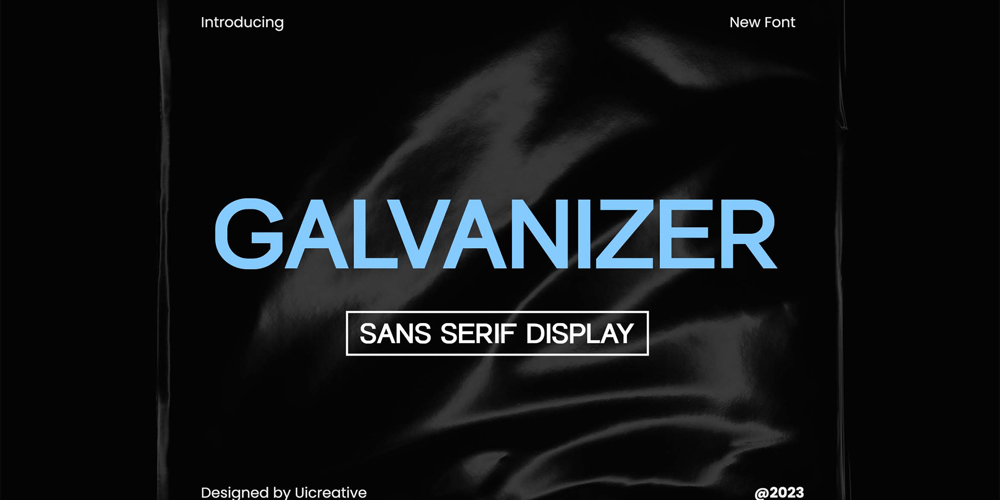
Galvanizer
Galvanizer font
Galvanizer Font Family was designed by Hero and published by UICreative. Galvanizer contains 9 styles and family package options. Introducing our new product the name Galvanizer Sans Serif Display Family Font comes with 9 different weights. Modern Sans Serif font that beautiful classy, elegant, and modern. This font is perfectly suited for a wide variety of projects, such as signature, stationery, logo, wedding, typography quotes, magazine or book covers, website headers, clothing, branding, packaging design, and more. Also for fashion-related branding or editorial design and displays both masculine and feminine qualities.